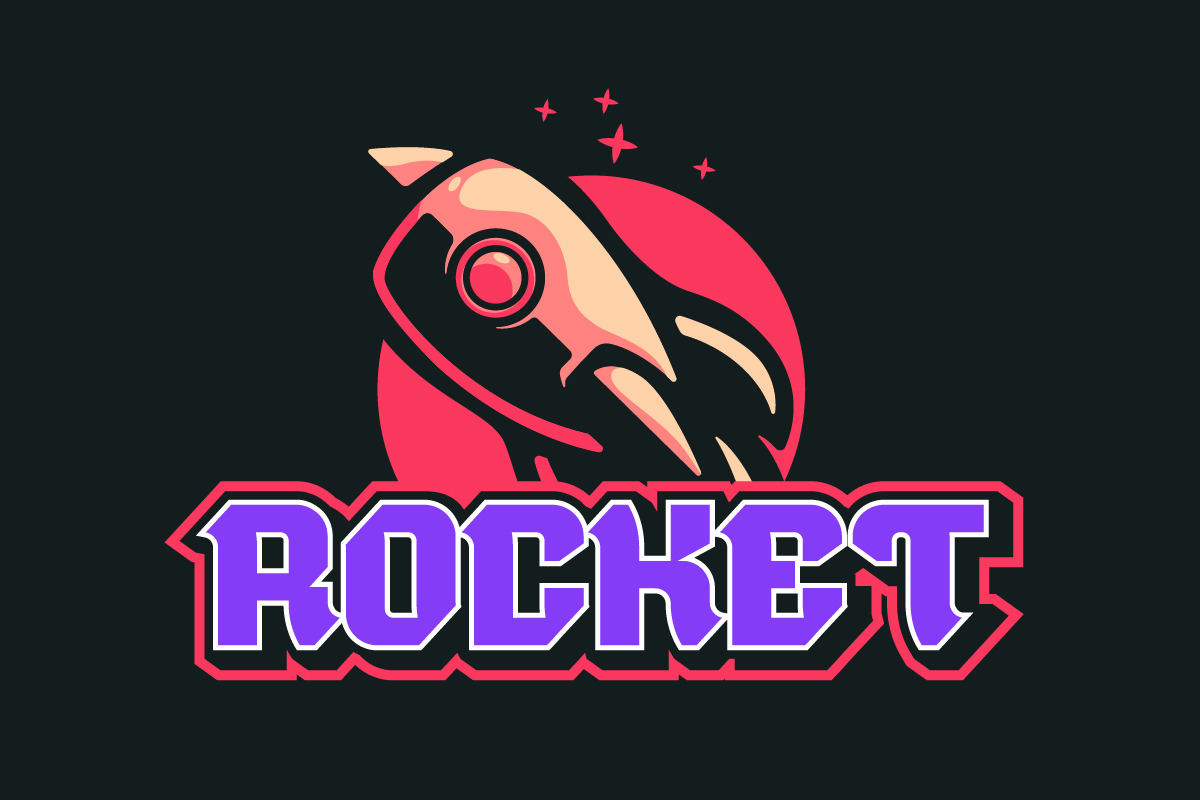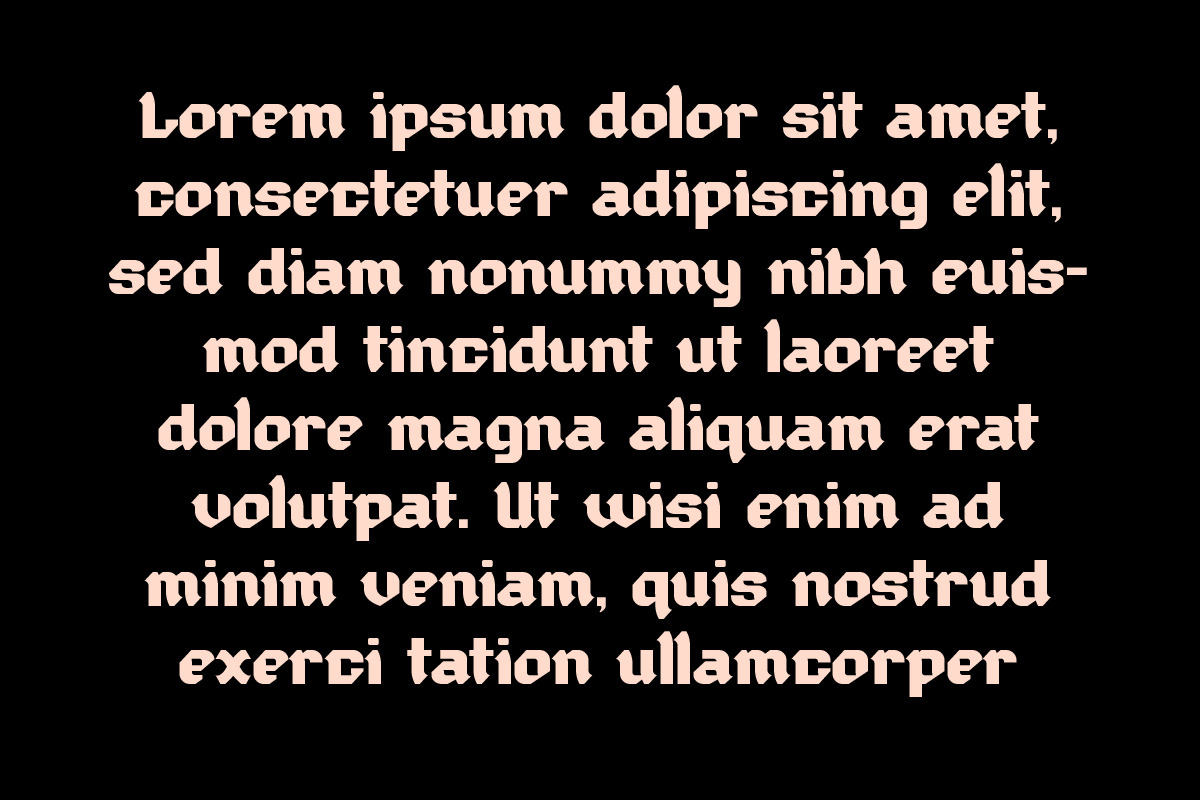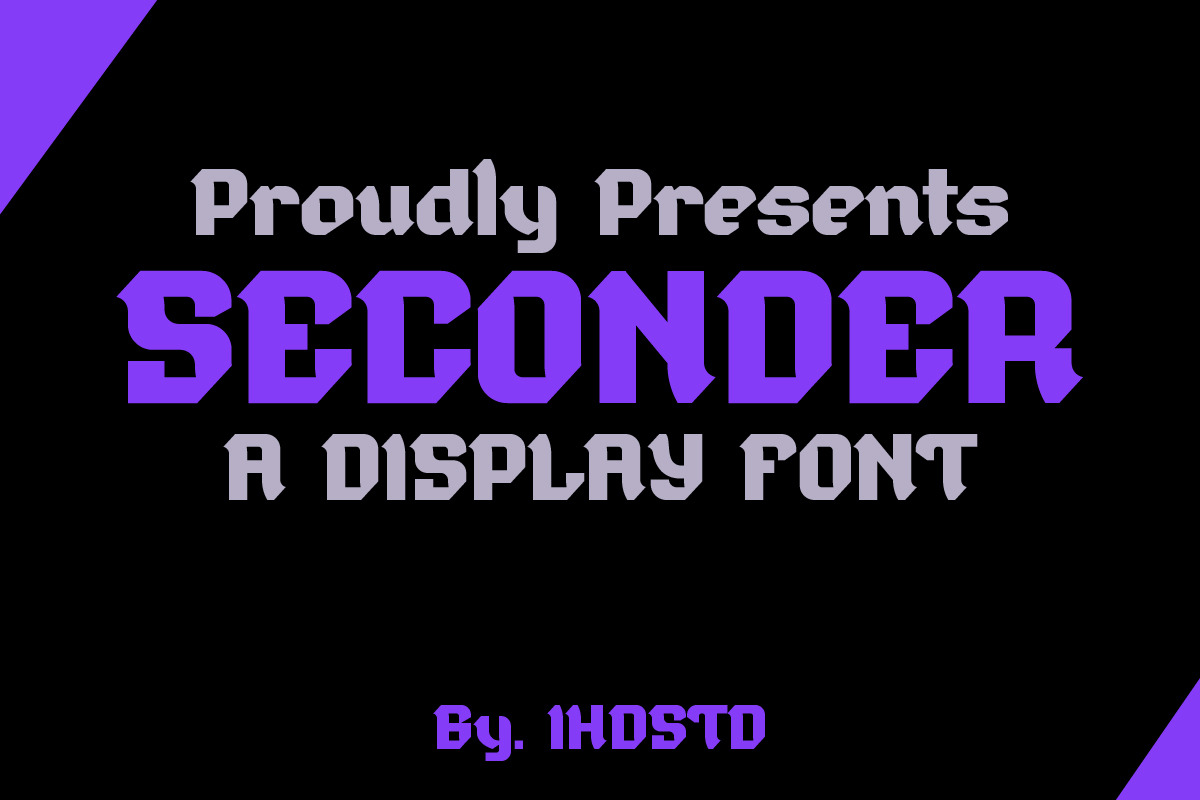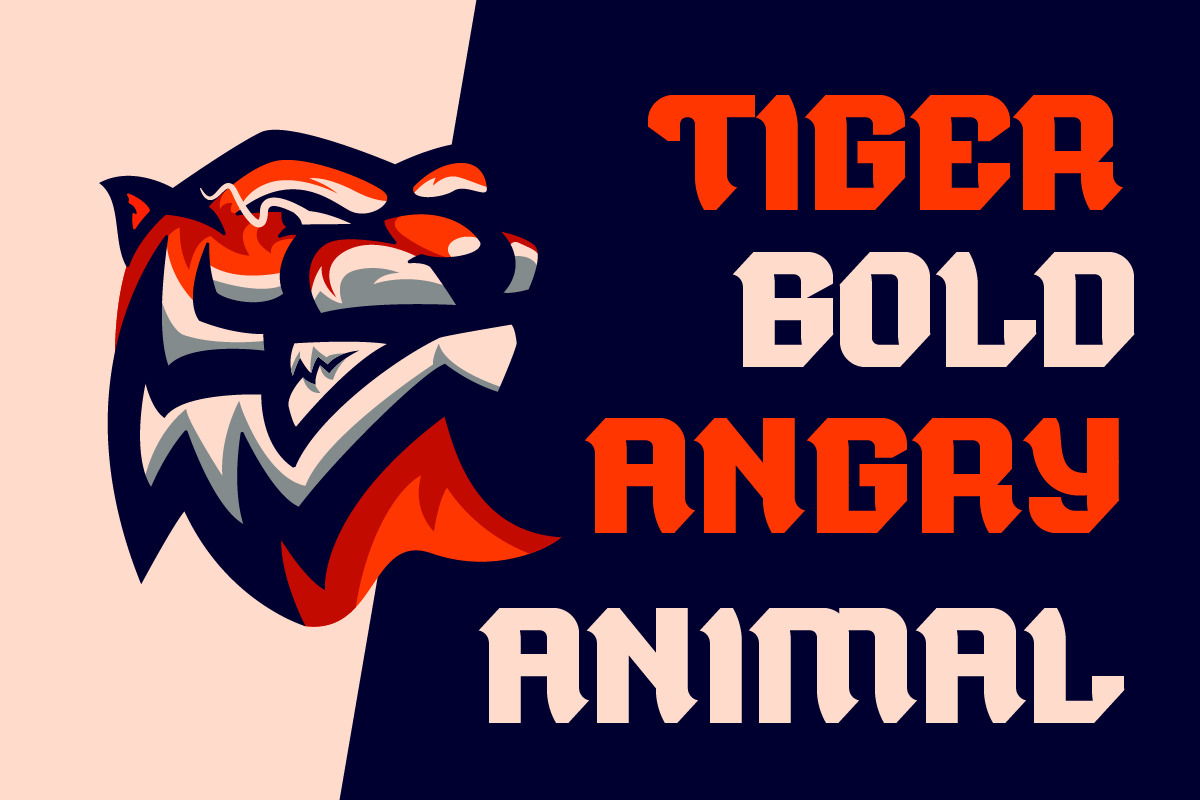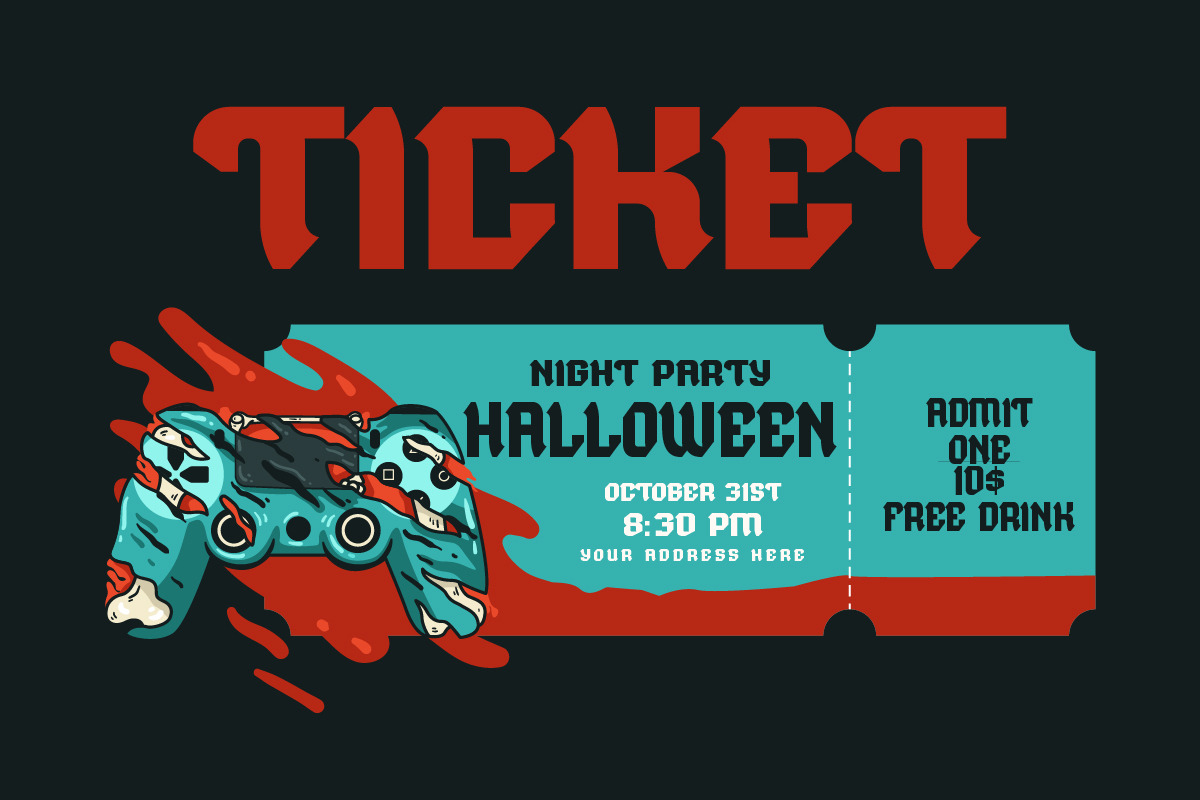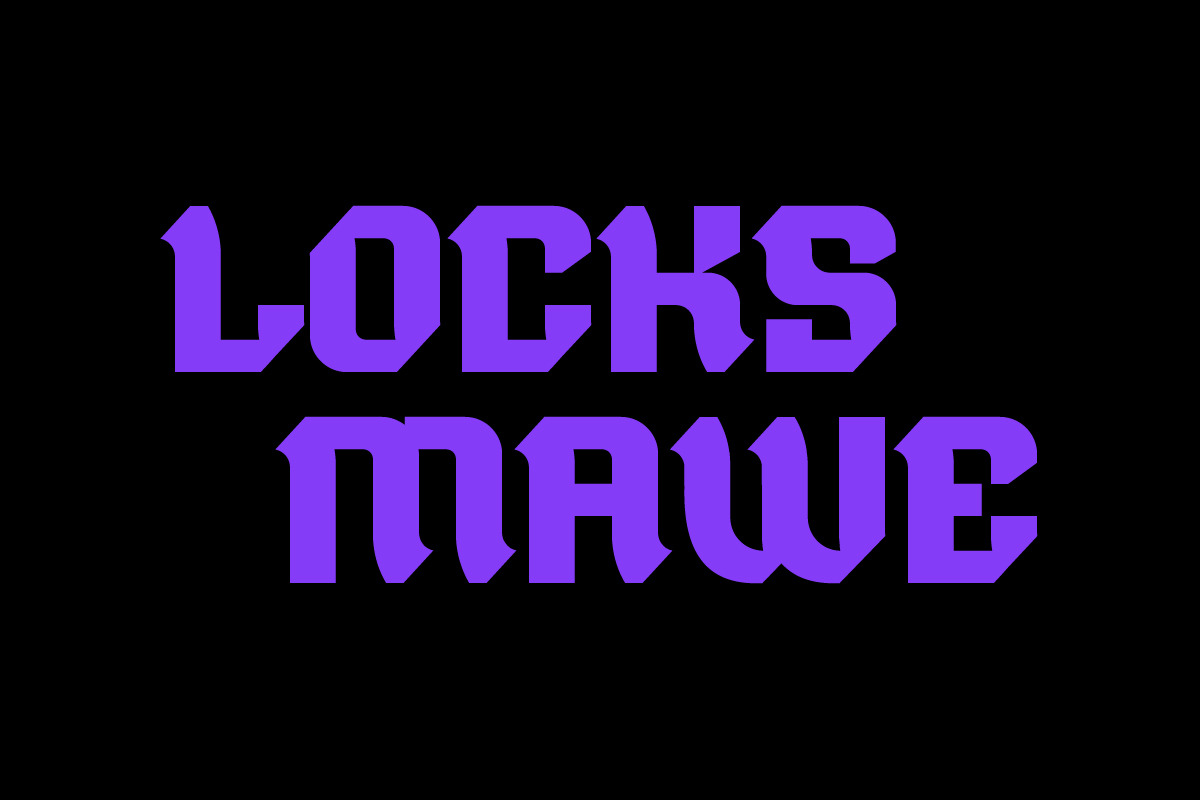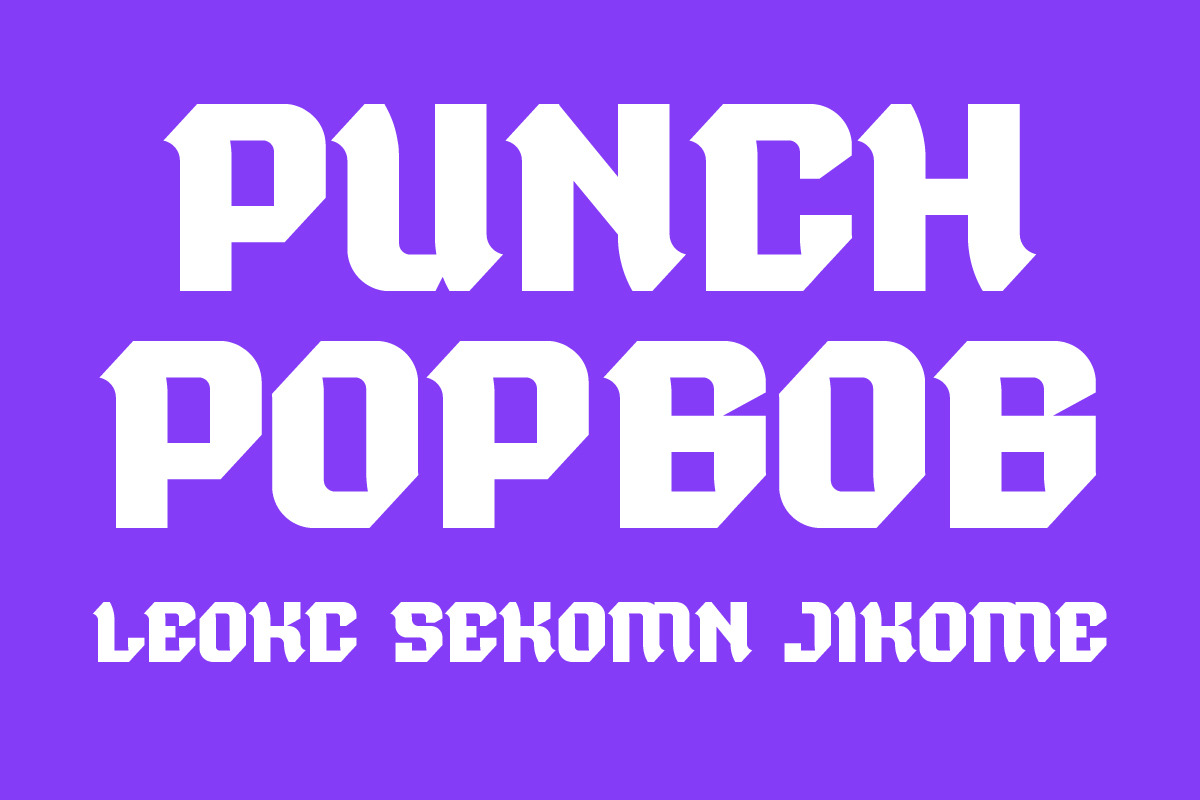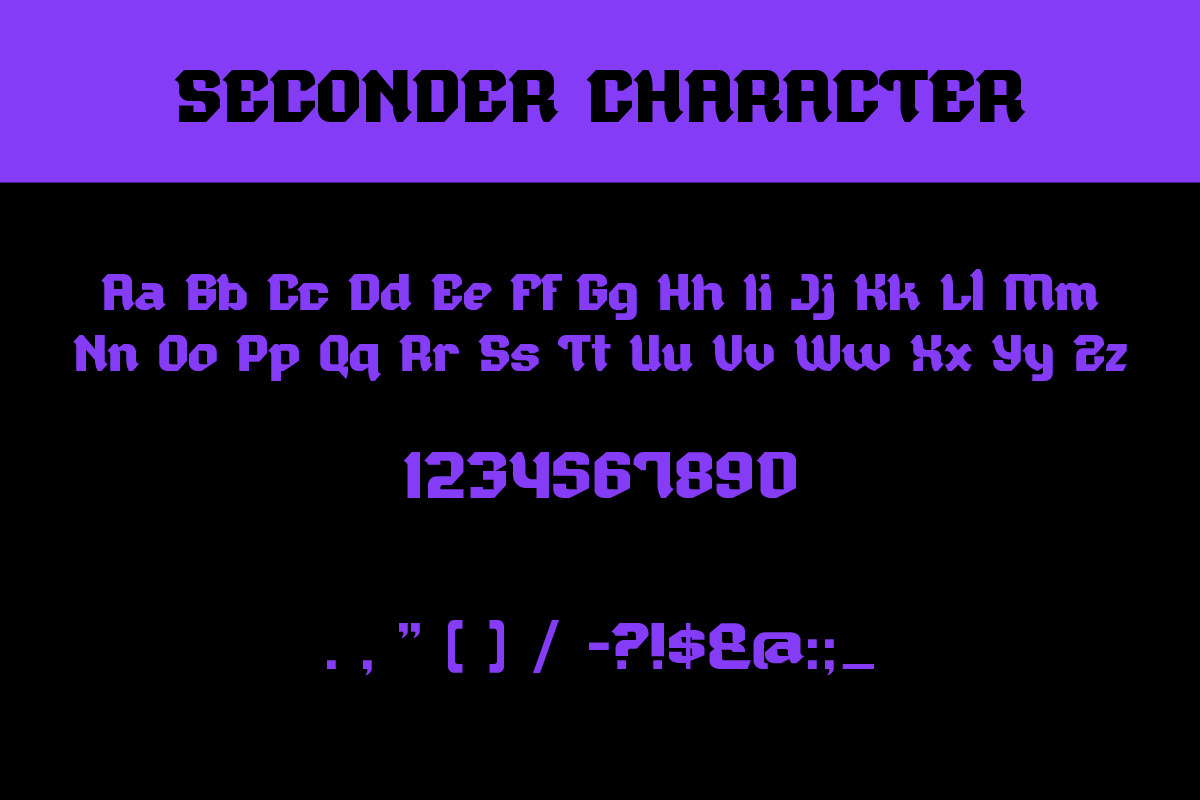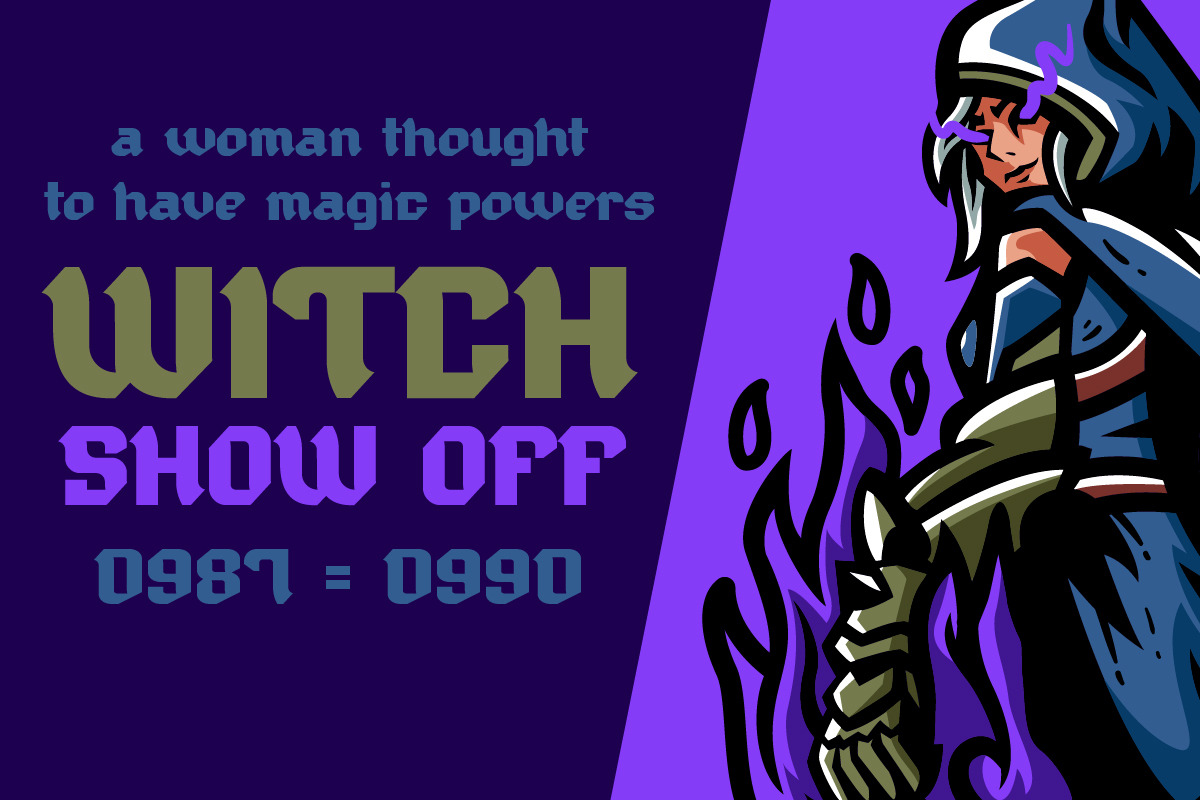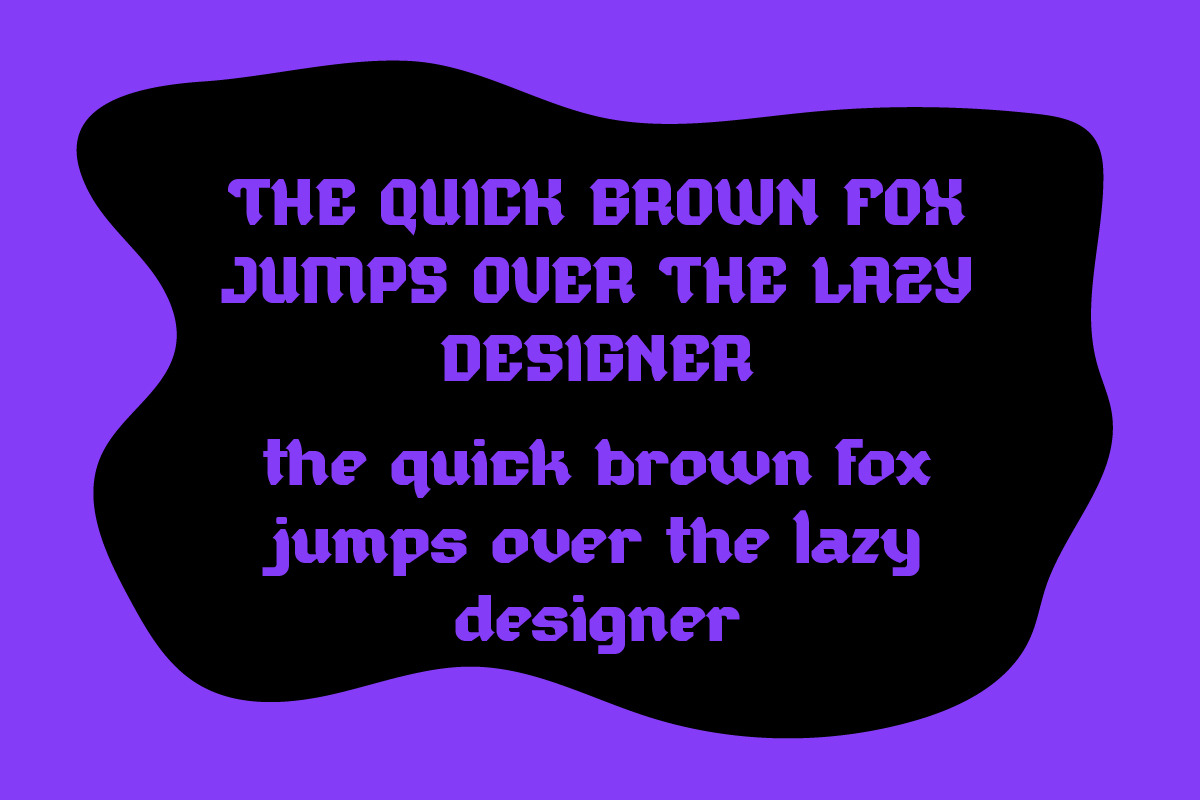
Seconder Display Font
Seconder Display Font new item suitable for your Posters.
Great for Logo, Poster, Sticker, Jerseys, Invitation Card, Brochure, etc.